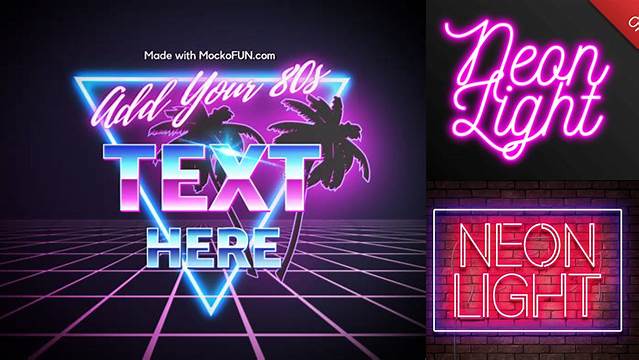
Free 80s Neon Font Generator: Design Guide
Hey guys! Ever wanted to bring back the electric vibes of the 80s? You know, the decade of big hair, epic movies, and those totally rad neon signs? Well, if you're looking to add that retro glow to your designs, you're in the right place. We're diving headfirst into the world of 80s neon font generators, and guess what? They're totally free! Whether you're a seasoned designer or just starting, these tools are your ticket to crafting eye-catching graphics, social media posts, or even website elements that scream "Eighties!" Buckle up, because we're about to explore how these generators work, what makes a great neon font, and where to find the best free options out there. Let's get started, shall we?
What Exactly is an 80s Neon Font Generator?
Okay, so what exactly is an 80s neon font generator? Simply put, it's a digital tool that lets you create text that looks like it's made of glowing neon tubes. Think of those vibrant signs you'd see in arcades, nightclubs, and movies like Blade Runner or Tron. These generators take your text input and apply a visual effect that mimics the neon aesthetic. You'll usually have options to customize the color, glow intensity, and sometimes even the style of the neon tubes. The goal? To make your text pop with that distinct 80s energy.
These generators typically work by applying a series of effects to the font. This usually includes a bright, vibrant color for the core of the text, a surrounding glow effect that mimics the light emanating from the neon, and often a subtle outline to give the text a defined edge. Some generators offer more advanced features, such as the ability to adjust the width of the neon tubes, add highlights or shadows, and even simulate the imperfections of real neon signs, like slight variations in the glow or the appearance of the glass tubes. These variations can make your text look more authentic and visually appealing. The accessibility of these generators is a major plus. Most are web-based, meaning you can use them directly in your browser without needing to download or install any software. This makes them incredibly convenient for quick projects or when you need to generate neon text on the fly. Whether you're a graphic designer, a social media enthusiast, or just someone who loves the 80s, these generators offer a fun and easy way to add a touch of retro flair to your work. You can experiment with different fonts, colors, and effects to find the perfect look for your project. In short, these generators are a quick and easy way to infuse a dose of the 80s into your designs. So, if you're ready to travel back in time and create some totally tubular text, let's explore some awesome free options!
Key Features of a Great Neon Font Generator
Alright, so you're on the hunt for the perfect neon font generator. But what should you actually look for? Not all generators are created equal, so knowing what features to prioritize can make a big difference in your final product. Here's a breakdown of the key features that make a neon font generator stand out from the crowd.
- Customization Options: This is huge. A great generator will offer a range of customization options. Look for generators that let you adjust the color of the neon, the intensity of the glow, and the thickness of the neon tubes. The more control you have over these elements, the better you can tailor the text to your specific needs. Some generators even let you choose the color of the glow, which can add another layer of visual interest.
- Font Variety: The ability to use different fonts is also super important. A good generator will allow you to select from a wide range of fonts. This allows you to find the perfect font to complement the neon effect. Experiment with different styles, from bold and chunky fonts to more elegant and stylized options. Some generators also let you upload your own fonts, which opens up even more creative possibilities.
- Ease of Use: Let's be real, nobody wants to spend hours wrestling with a complicated tool. Look for generators with a user-friendly interface. The best generators are intuitive and easy to navigate, allowing you to quickly create the neon text you want without a steep learning curve. Simple controls and clear previews can make the entire process much smoother. The goal is to make the design process fun and efficient.
- Output Quality: Of course, the final output quality is critical. The generator should produce high-resolution images that look great, whether you're using them for print or online. Pay attention to the detail of the neon effect, ensuring that the glow looks realistic and the text is crisp and clear. The ability to download your text in various formats (like PNG or JPG) can also come in handy for different applications.
- Additional Effects: Some generators go the extra mile by offering additional effects. This can include things like shadows, outlines, or even the ability to add imperfections to the neon, like cracks or variations in the glow. These extra touches can enhance the realism and visual appeal of your neon text, giving it a more authentic and vintage look. Generators that let you add background elements, such as a textured background or other graphical elements, can give you more complete control over your designs. Considering these features can dramatically improve your final neon designs. The more flexibility and options a generator provides, the more creative freedom you'll have.
Free 80s Neon Font Generators: Where to Find Them?
Now for the good stuff: where do you actually find these awesome, free 80s neon font generators? Lucky for you, there are several excellent options available online. Here are a few of the best, along with a brief overview of what they offer.
- Online Neon Text Generators: There are many web-based tools available that let you create neon text directly in your browser. Many of these sites are easy to use and offer a decent range of customization options. Simply enter your text, choose your font, colors, and effects, and download your finished image. Some popular options include:
- Namecheap Neon Sign Generator: Namecheap offers a simple and intuitive neon sign generator that allows you to create neon text in various styles and colors.
- TextFX: TextFX provides a variety of text effects, including neon, and allows you to customize your text with different colors, glows, and outlines.
- Cool Text: Cool Text is a popular online graphics generator that offers a neon effect along with many other text styles and customization options.
- Image Editing Software: If you already use image editing software like Photoshop or GIMP, you can often create neon text effects within those programs. While this method might require a little more technical know-how, it gives you even more control over the final result. You can experiment with different layer styles, blending modes, and effects to achieve the perfect neon look.
- Photoshop: Adobe Photoshop is a professional-grade image editing software that provides extensive tools and options for creating neon text effects. You can use layer styles like outer glow and inner glow, as well as blending options and other effects, to achieve a realistic neon look.
- GIMP: GIMP is a free and open-source image editing software that is a great alternative to Photoshop. It also offers various tools and features to create neon text effects, including glow effects, outlines, and customization options.
- Dedicated Apps: Some apps are specifically designed for creating text effects, including neon. These apps can be especially handy if you're designing on a mobile device or prefer a dedicated interface. A quick search in your app store for